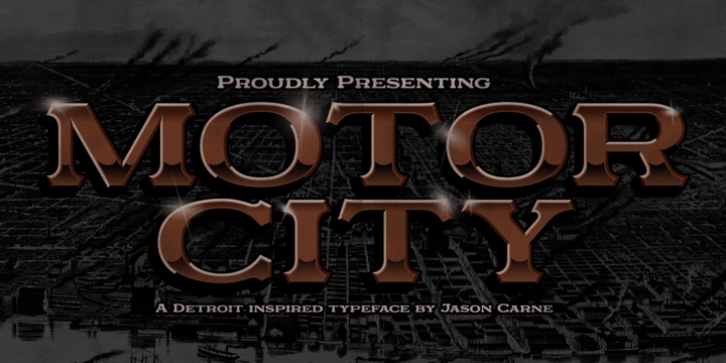
An industrial strength slab-serif inspired by Detroit itself, Motor City is a heavyweight titan of type that breathes diesel and exudes brawn. Defined by its trapezoidal serifs that were characteristic of many Detroit-centric sign-painters during the dawn of the 20th century, this typeface is a modern adaption of a classic aesthetic.
Uppercase Only
Small CapsSupports 75+ Latin Languages